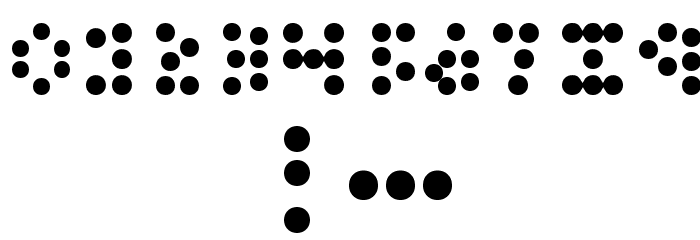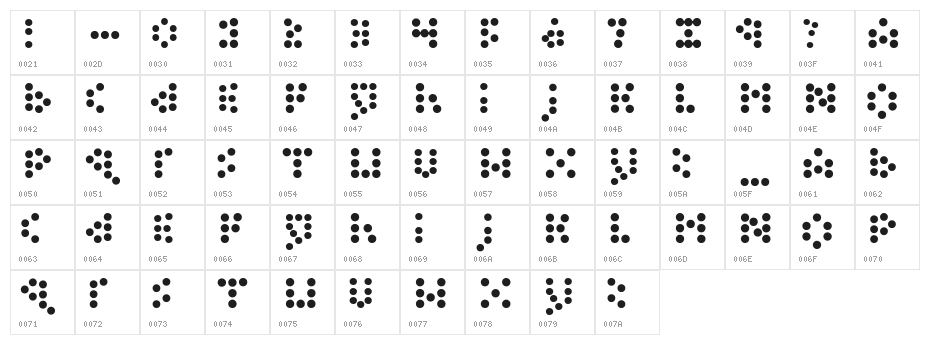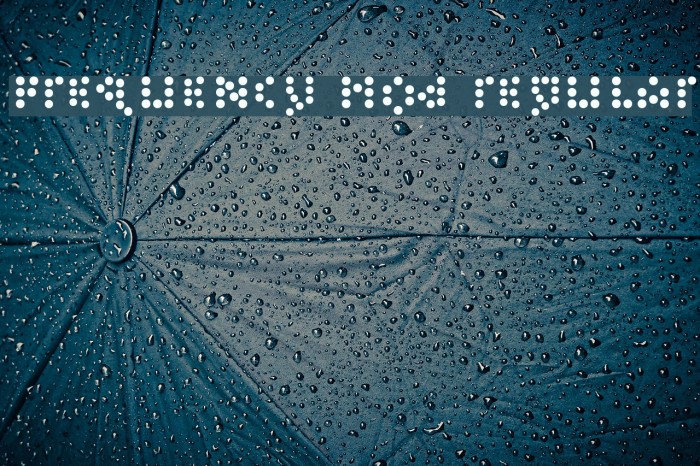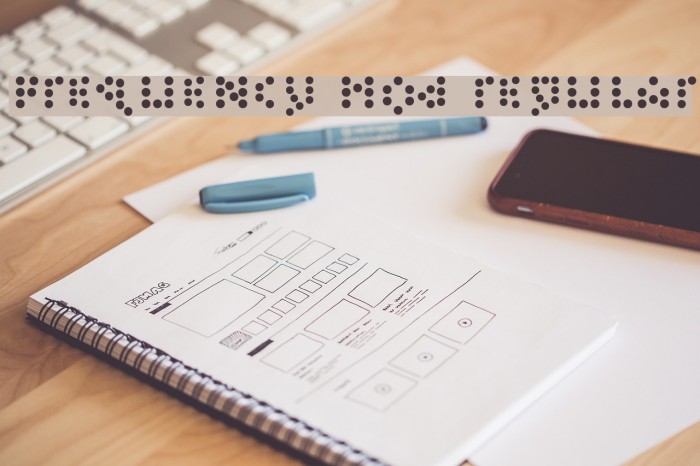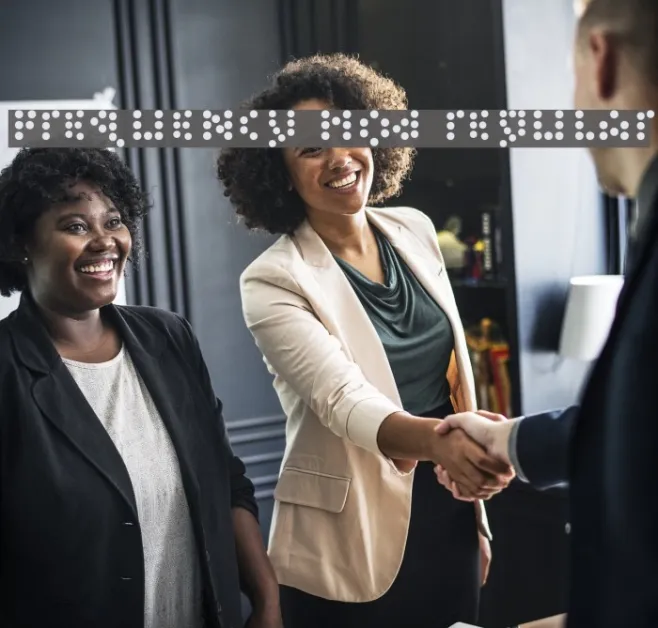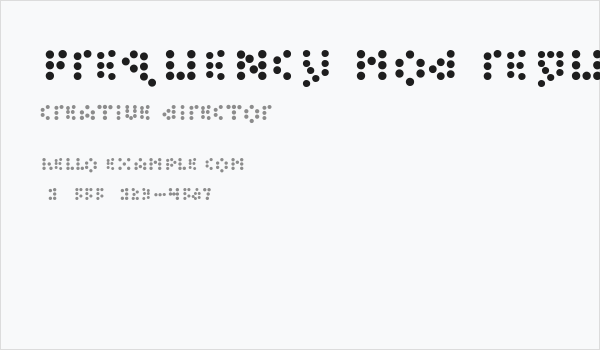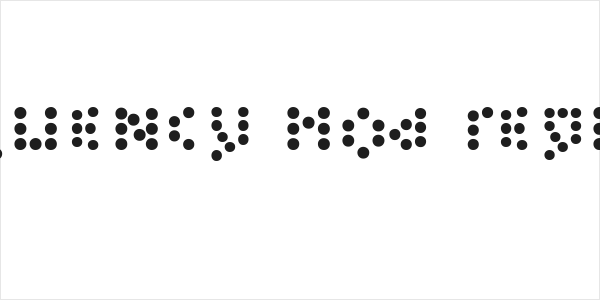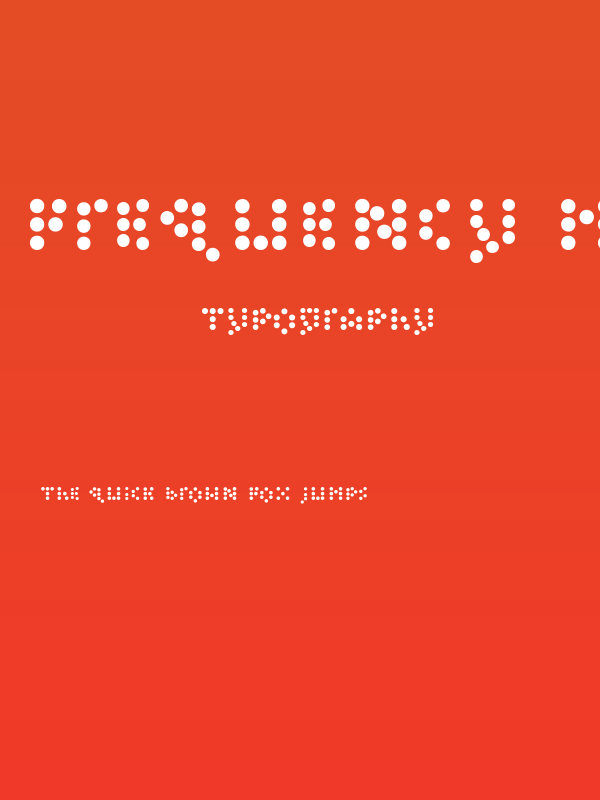
Frequency Mod Regular Font
Frequency Mod Regular Description
This font is a unique and modern design composed entirely of dots, creating a digital and futuristic appearance. Each character is constructed with a series of evenly spaced circular dots, giving it a pixelated look reminiscent of early digital displays or LED signage. The uniformity of the dots provides a consistent texture across all characters, ensuring readability while maintaining its distinct style. This design choice makes it stand out as a decorative and display typeface, suitable for creative and tech-oriented projects. The font's geometric nature and symmetrical arrangement of dots contribute to its clean and structured aesthetic.
| Proposed Projects | Ideal for digital displays, tech branding, futuristic posters, and creative design projects. |